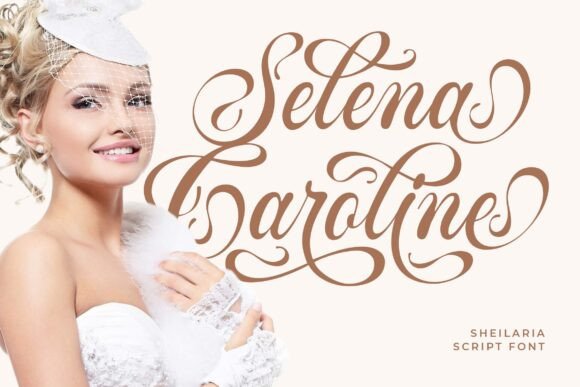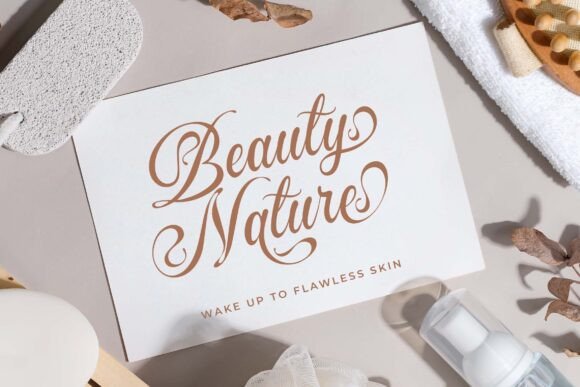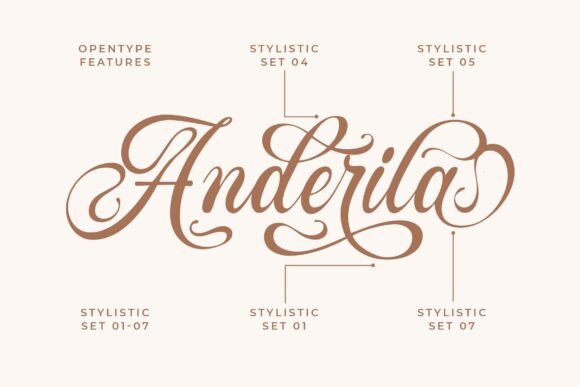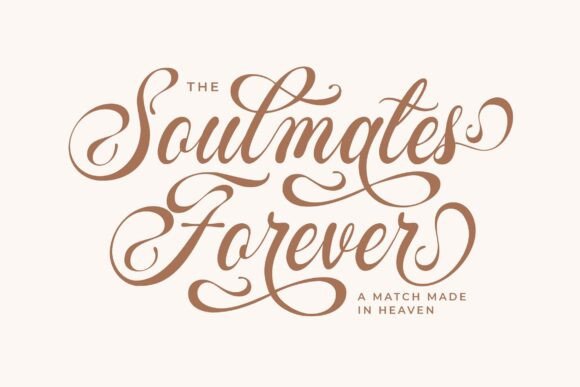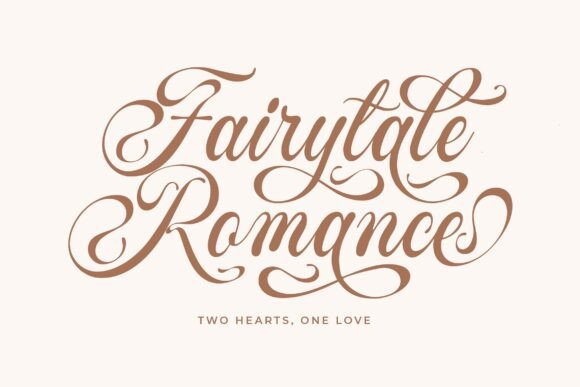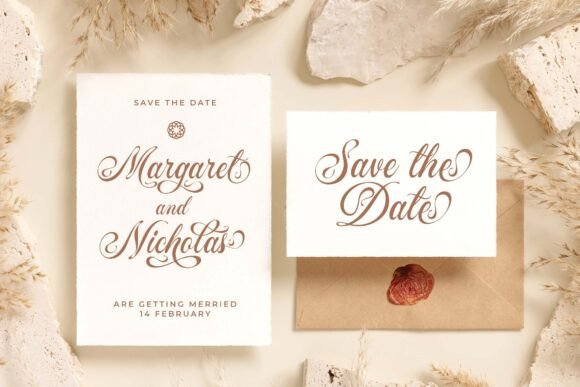
Introduction to Sheilaria Font Font
Fonts play a crucial role in design, and the Sheilaria Font font is a typeface that brings both character and versatility to any project. Whether you’re working on a branding project, a website, or a print design, the Sheilaria Font font offers a unique style that can elevate your work.
This time, we have a new font called Sheilaria a legendary Script font by Blankids Studio S heilaria a legendary Script font is made for any professional project branding, such as logotype, wedding invitation, watermarks, poster, branding, promotions, product packaging, etc.
Key Features of Sheilaria Font Font
The Sheilaria Font font is more than just a typeface – it’s a design tool that helps you communicate your message with style and clarity. Its unique character set and versatile design make it suitable for a wide range of applications, from elegant invitations to bold headlines.
With its carefully crafted letterforms and balanced proportions, the Sheilaria Font font ensures readability and visual appeal across all mediums.
What makes Sheilaria Font font special?
The Sheilaria Font font stands out with its unique design, exceptional readability, and versatility across various design applications.